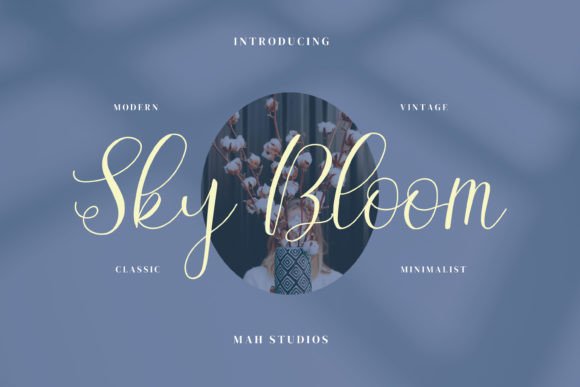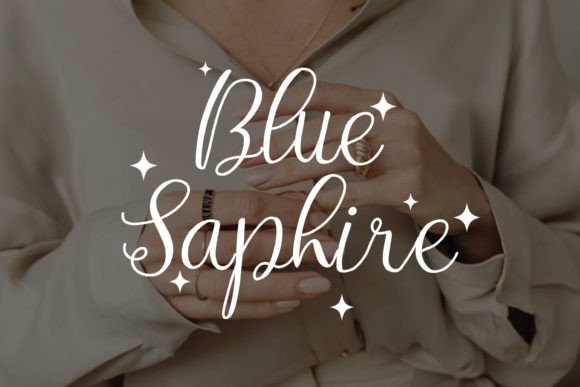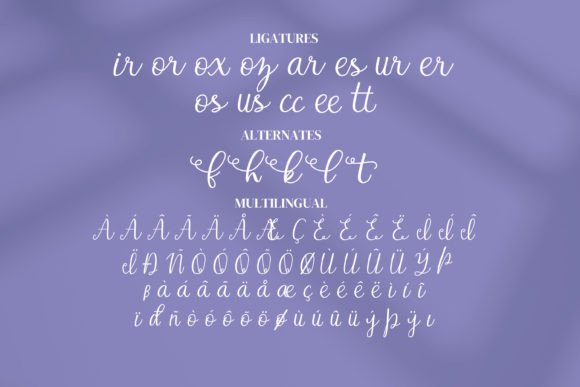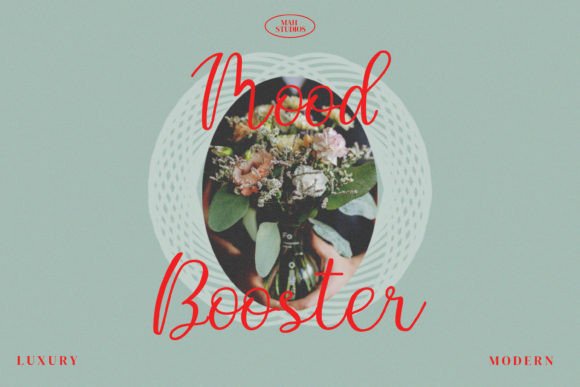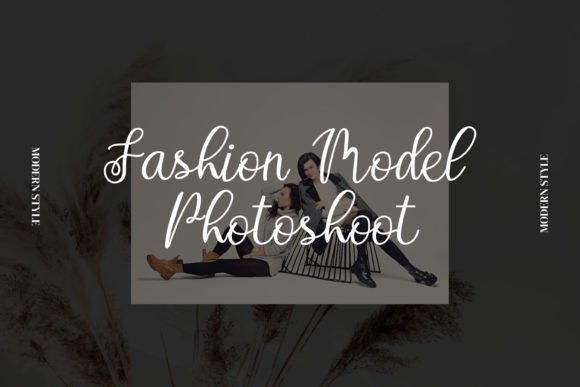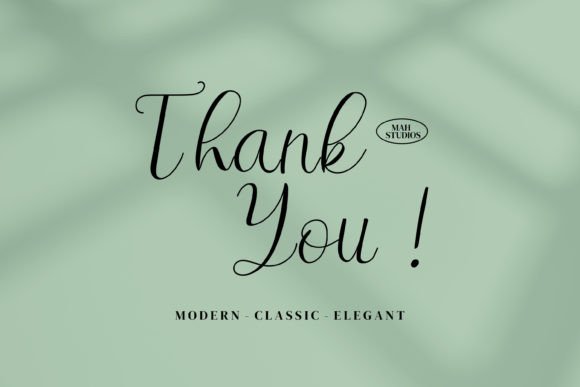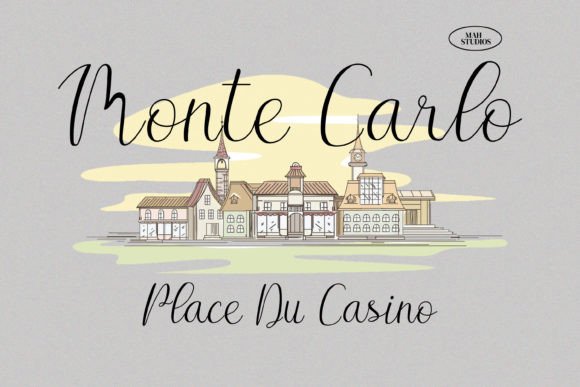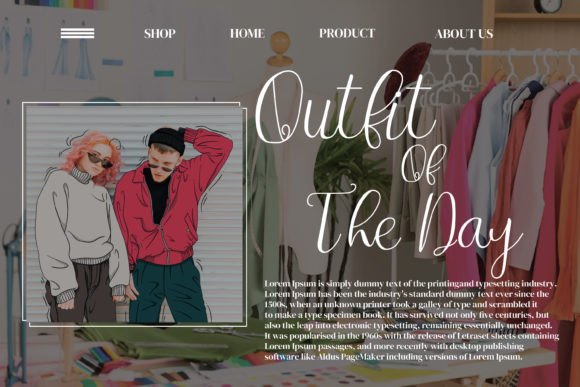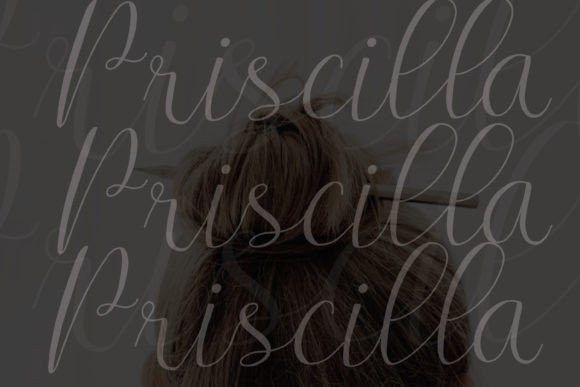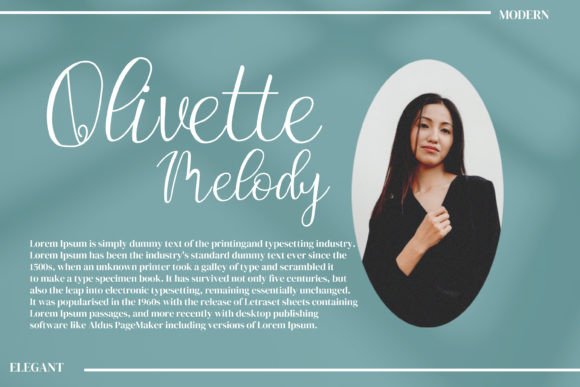
Sky Bloom Font
About Sky Bloom Font
Sky Bloom Font is a swirly and elegant script typeface designed to bring luxury and personality to any creative project. With its graceful curves and premium signature style, Sky Bloom makes a striking impression wherever it’s used. This font is perfect for designers, brands, and creators who want to add sophistication and artistry to their work.
Whether you’re designing logos, invitations, or packaging, Sky Bloom has the versatility and charm to elevate your ideas and leave a lasting impact.
Distinctive Handwritten Elegance
Sky Bloom’s letters flow with a natural, hand-lettered feel that looks refined yet approachable. Each character features smooth swashes and subtle variations that create a custom, authentic look.
The beautiful curves and stylish flourishes make it ideal for designs where you want to communicate elegance, luxury, and creativity.
From wedding invitations to premium product labels, Sky Bloom’s distinctive style draws attention while staying classy and easy to read.
Versatile for Many Applications
One of the best qualities of Sky Bloom is how well it adapts to different projects. Here are some of the most popular ways to use this font:
• Logos & Branding: Create a sophisticated brand identity with stylish signature lettering.
• Product Packaging: Make labels and boxes look exclusive and professional.
• Invitations & Stationery: Perfect for wedding invitations, RSVP cards, and thank-you notes.
• Apparel: Design t-shirts, tote bags, and hats with a luxury feel.
• Social Media: Enhance posts, stories, and banners with a high-end look.
• Print Materials: Use it on posters, book covers, flyers, and business cards.
• Photography & Watermarks: Add a professional signature to your photos.
• Quotes & Wall Art: Make inspiring messages stand out beautifully.
No matter where you use Sky Bloom, it adds a premium touch that sets your work apart.
Easy to Use & Customize
Make Your Designs Unforgettable
Sky Bloom isn’t just another script font—it’s a tool to create lasting impressions. Its graceful letterforms and artistic details make any design feel elevated and polished. Whether you’re building a luxury brand or designing keepsake invitations, Sky Bloom ensures your work feels special.
If you want to deliver a premium signature style that feels personal and elegant, this font is the perfect choice.
Why Choose Sky Bloom Font?
• Swirly, Elegant Design: Creates a premium, sophisticated look.
• Versatile: Ideal for branding, packaging, apparel, and more.
• Memorable: Adds a luxury feel to every project.
Sky Bloom is your go-to script font when you need a polished, high-end aesthetic.